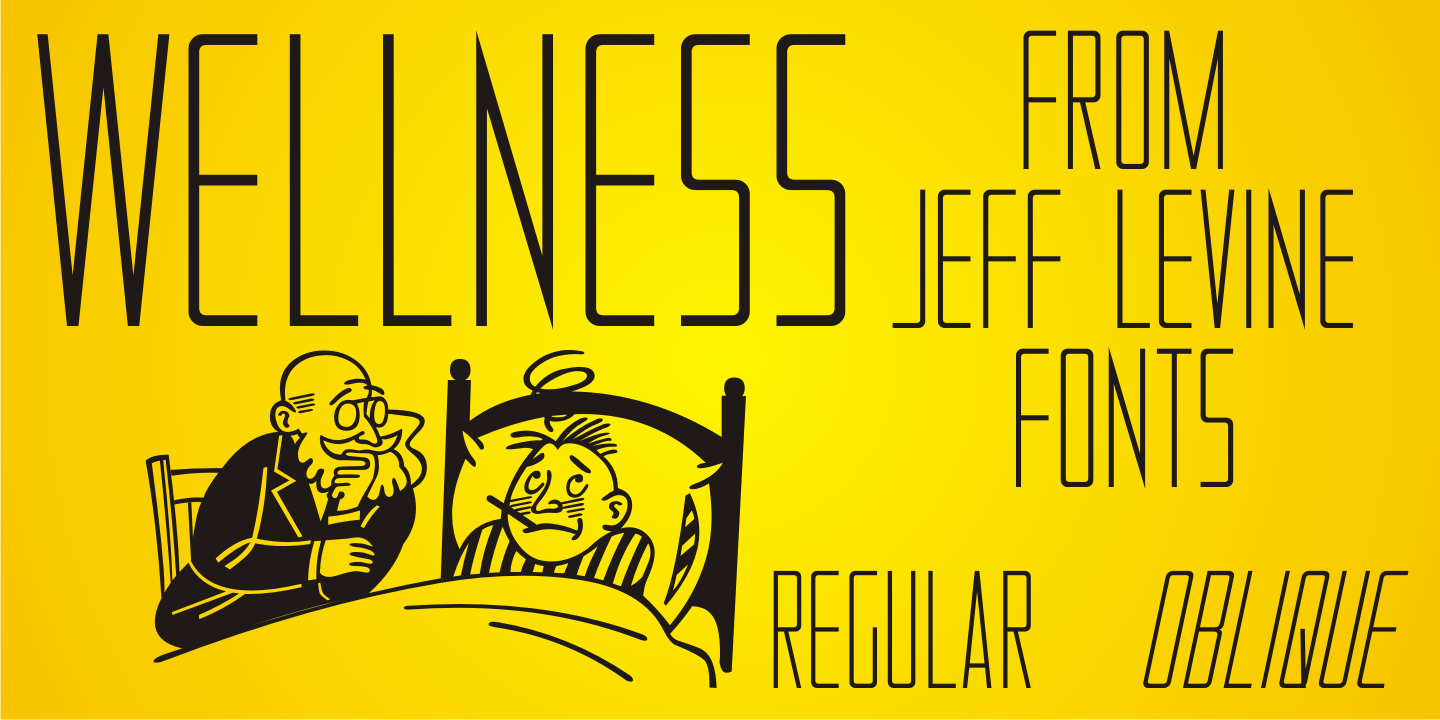
Wellness
The Federal Art Project of the WPA (Works Progress Administration) employed artists to create posters for various subjects including health, tourism, safety, patriotism, theater and the arts during the Great Depression years of the 1930s on through the early 1940s.
One health-related poster had the word 'against' in a thin Art Deco monoline which served as the basis for Wellness JNL, which is available in regular and oblique versions.
Wellness JNL Regular by Jeff Levine Fonts